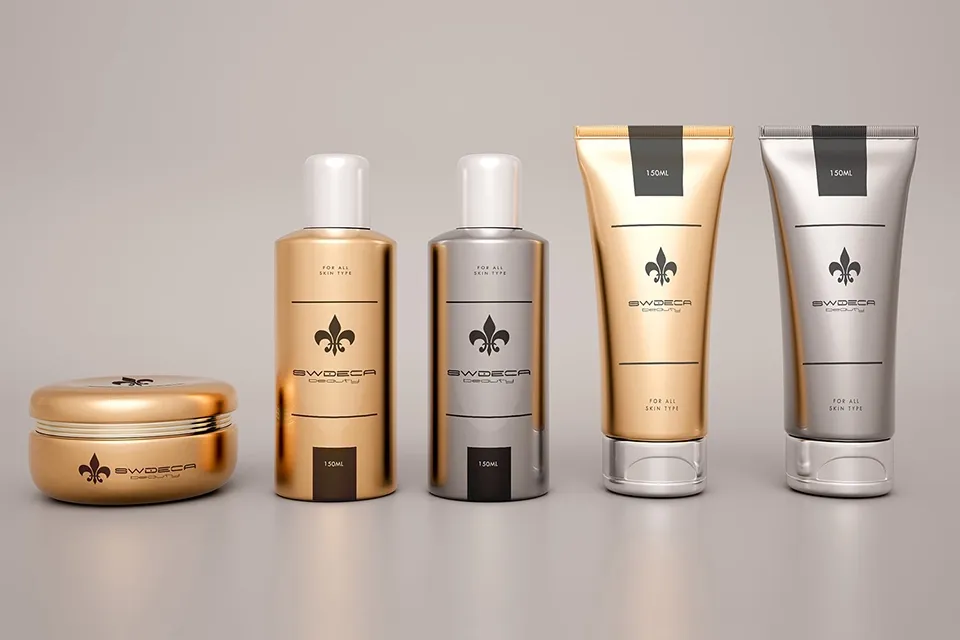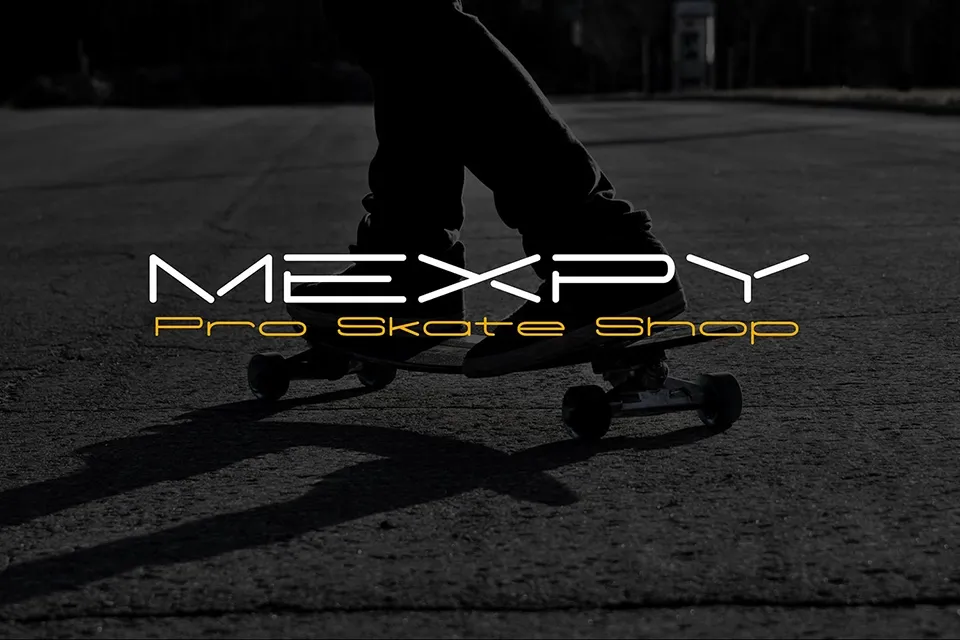
Madeleine Font Family
Madeleine Font Family is a sleek and futuristic typeface that combines modern design with versatility. Featuring Regular and Bold styles, this font is characterized by its clean, geometric letterforms and unique details that add a contemporary edge. Ideal for branding, logos, posters, packaging, and digital designs, Madeleine Font Family offers a professional yet creative aesthetic that ensures your text stands out. Its minimalist structure enhances readability while maintaining a stylish and innovative look. Whether used for bold headlines or subtle accents, Madeleine Font Family brings sophistication and personality to any project, making it a perfect choice for forward-thinking designers.